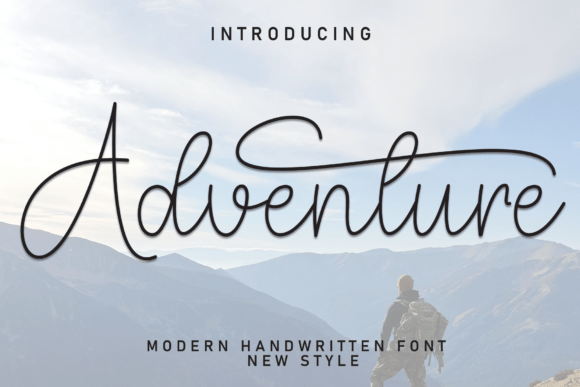
The Adventure Font: Elevate Your Designs with Elegance and Fluidity
I’ll never forget the moment I stumbled upon the Adventure font. I was working on a branding project for a luxury travel company, and I was struggling to find the perfect typeface that exuded both sophistication and a sense of adventure. That’s when I discovered Adventure, a stylish handwritten script font that radiates elegance and fluidity. Its smooth, flowing strokes create a natural and sophisticated feel, perfect for branding, invitations, and creative projects.
As a designer, I’m always on the lookout for fonts that can elevate my projects and make them stand out. Here’s what I love about Adventure:
- ✨ Elegant and fluid strokes: The font’s smooth, flowing strokes create a natural and sophisticated feel that’s perfect for high-end branding and design projects.
- ✅ Versatile and adaptable: Adventure works beautifully for a wide range of applications, from luxury travel branding to wedding invitations and creative projects.
- 💫 Charming and artistic: The font’s handwritten script style adds a personal, artistic touch to any design, making it perfect for projects that require a bit of personality.
While Adventure is an amazing font, there are a few quirks to keep in mind:
- 🤔 Limited use for body text: Due to its script nature, Adventure is best suited for headlines, titles, and short paragraphs. It may not be the best choice for longer blocks of text.
- ⚠️ Requires careful kerning: As with any script font, kerning can be a bit tricky. Make sure to adjust the kerning to ensure the text looks smooth and elegant.
One of the best things about Adventure is its range of OpenType features and glyphs. Here are a few tips for getting the most out of these features:
- Stylistic alternates: Adventure offers a range of stylistic alternates that allow you to customize the font to suit your design. Experiment with different alternates to find the perfect fit.
- Swashes and ornaments: Add a touch of elegance to your design with Adventure’s swashes and ornaments. These can be used to create beautiful headings and titles.
The Story Behind Adventure
Adventure was designed by a team of typographers who wanted to create a font that captured the essence of exploration and discovery. Inspired by the fluid lines and elegant curves of handwritten script, they crafted a typeface that’s both sophisticated and charming.
- Q: What is Adventure font?
- A: Adventure is a stylish handwritten script font that radiates elegance and fluidity.
- Q: What can I use Adventure for?
- A: Adventure is perfect for branding, invitations, and creative projects that require a touch of sophistication and charm.
- Q: Is Adventure suitable for body text?
- A: Due to its script nature, Adventure is best suited for headlines, titles, and short paragraphs. It may not be the best choice for longer blocks of text.